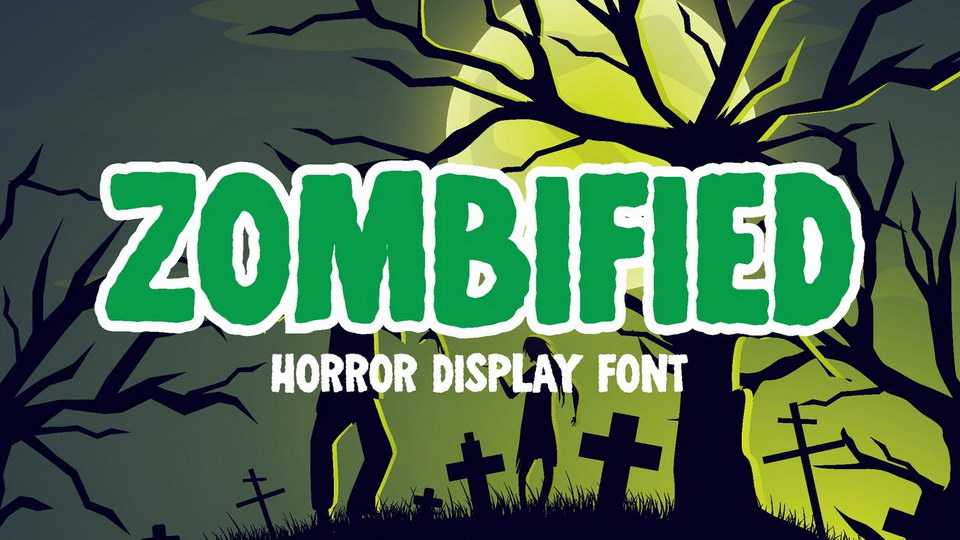
Download Zombified font, a display typeface inspired by the dark, windy, and foggy night… a scratch sound growling from under… the owl hooting at the died tree branch… suddenly a slimy and smelly hand arise from the graveyard… The Zombified is coming at you… you cannot escape the terror.